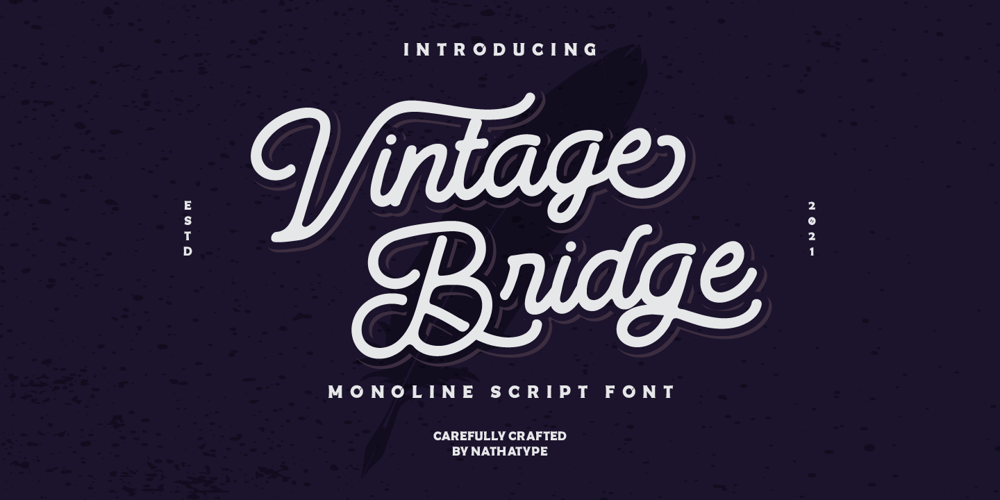
Vintage Bridge Font Family was designed by Donis Miftahudin and published by Nathatype. Vintage Bridge contains 1 styles and family package options. Get ready to transcend to a world of magic, laughter, and butterflies. Your projects will spark delight and engage everyone who sees it! Wait no more, we will give you the best choice.Vintage Bridge-A Monoline Script FontVintage Bridge is a handcrafted font, made to bring out a slice of retro vibes. Every hand-drawn stroke and curve will delight and add brightness and fun to wherever it’s placed. Ideal to create amazing headings, logos, menus, and social media graphics.Vintage Bridges includes Multilingual Support to make your branding reach a global audience. Features: Alternates Ligatures Stylistic Set Bonus Ornament PUA Encoded Numerals and Punctuation Thank you for downloading premium fonts from Nathatype